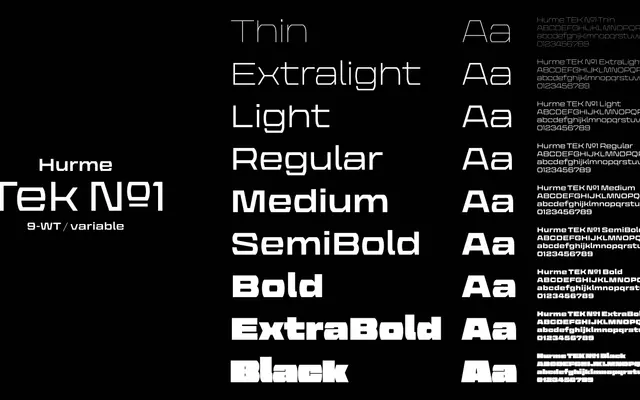
Hurme Tek №1
A wide monolinear geometric sans with horizontally cut strokes, a large x-height and short ascenders and descenders, available in nine static weights and as a variable font.
Horizontally clipped stroke terminals set against rounded verticals give Hurme Tek №1 its distinctive mechanical rhythm, referencing technical and industrial lettering traditions. The wide proportions and large x-height make it well suited to display use and interfaces where legibility at size matters. Nine static weights from Thin to Black are complemented by a single-axis variable font for flexible deployment.
Described as a wide monolinear sans with mechanically cut horizontal strokes contrasting with round vertical strokes, placing it firmly in the geometric sans tradition with a technical, constructed character.